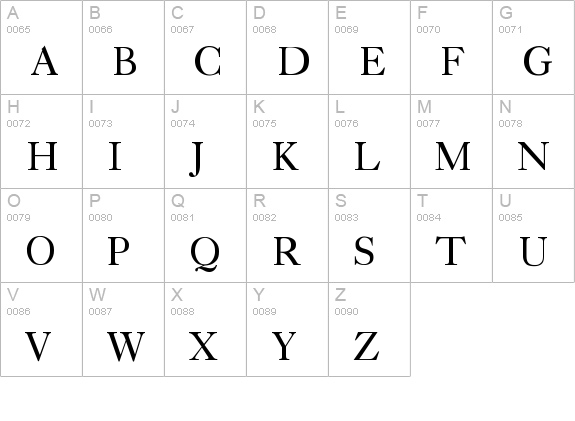
Caslon-Normal Font Details
Caslon-Normal is the standard, neutral variant in the Caslon typeface family \xE2\x80\x94 well suited to general body text, paragraphs, and standard typographic work.
Caslon-Normal is a classic serif font that exudes elegance and timelessness. Its graceful letterforms and subtle contrasts make it an ideal choice for conveying a sense of sophistication and tradition in your design projects. The sturdy serifs and clean lines of Caslon-Normal provide excellent readability, making it suitable for both body text and display purposes. This versatile font is now available for free download at FontsMarket.com, allowing you to easily incorporate its timeless charm into your work without any cost. Whether you are designing a website, creating a print layout, or crafting a logo, Caslon-Normal is sure to elevate your design with its refined aesthetic and historical significance. Embrace the classic beauty of Caslon-Normal and bring a touch of tradition to your next project.